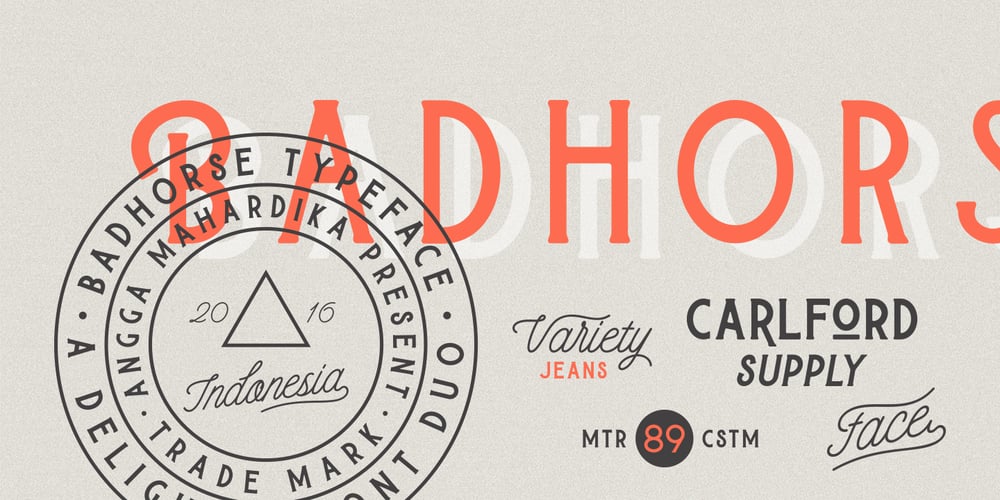
Badhorse Font Family was designed by Angga Mahardika and published by Angga Mahardika. Badhorse contains 2 styles and family package options. I created this font in 2016 with the name “Burtons”, and now here I am turning it into “Badhorse”. If you’re looking for the perfect touch of vintage flair for a design project, Badhorse is an exceptional choice. Pairing a rustic serif with a decorative handwritten script, Badhorse offers two distinct type designs that complement one another beautifully. This font duo is effective on product packaging, particularly for wares that prefer a handcrafted, artisan approach to their finished presentation. Badhorse is ideal for strong branding, identity, and logo design, as its letter forms effortlessly express a tone of familiarity, reliability, and timelessness. Advertising spreads and menu layouts will also take advantage of this modern classic, conjuring a sense of nostalgia and comfort in the viewer. Badhorse offers stylistic alternates and ligatures through OpenType, as well as symbols, punctuation, and international characters for additional language support.